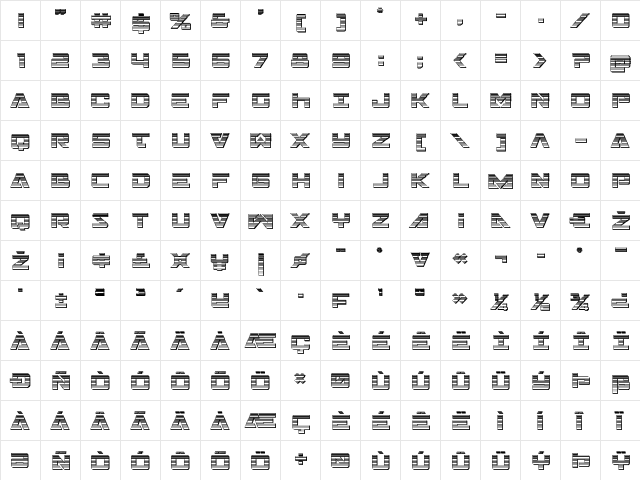
Trans-America Chrome Regular
Design Context for Trans-America Chrome Typeface
Trans-America Chrome is a composed and adaptable typeface that performs quietly and consistently across a wide range of design contexts.